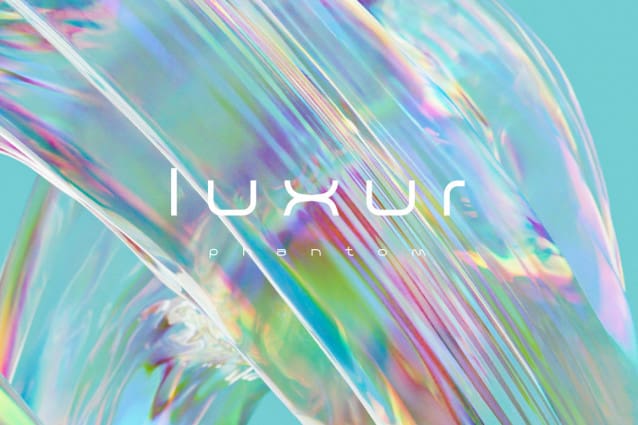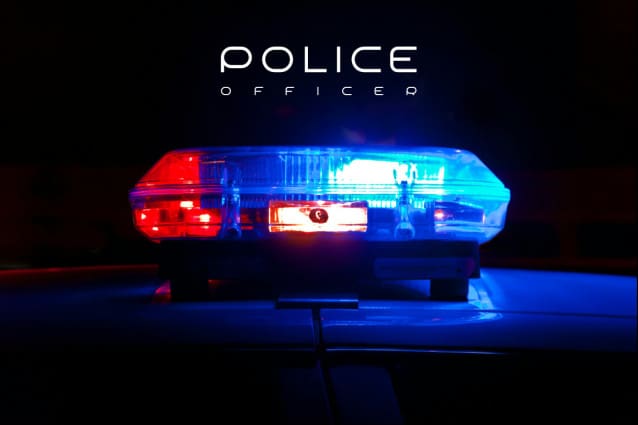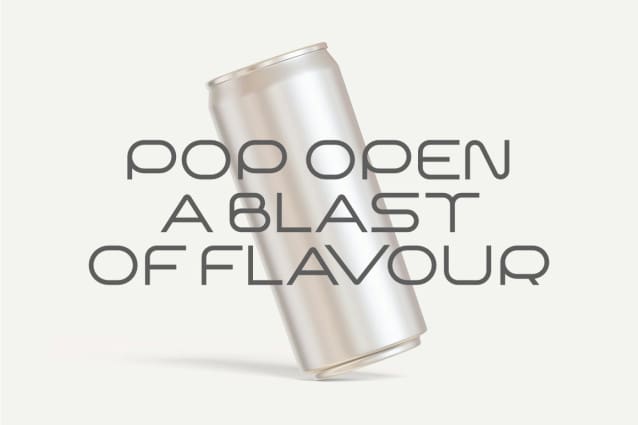
FF Mab Font
FF Mab Font, upgrade your typography game and make a lasting impression with our tech-inspired font. Embody the spirit of progress and sophistication in every word, without ever compromising on clarity and readability.